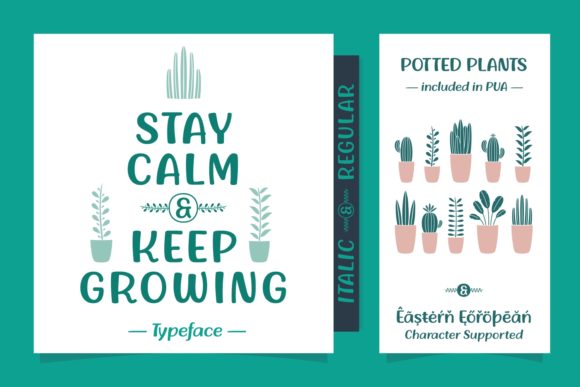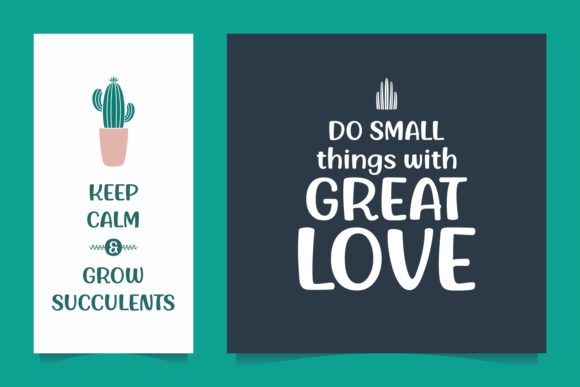
Stay Calm & Keep Growing Font
About Stay Calm & Keep Growing Font
Stay Calm & Keep Growing is a cute and charming handwritten font, perfect for your new projects such as posters, mug designs, t-shirts and much more.